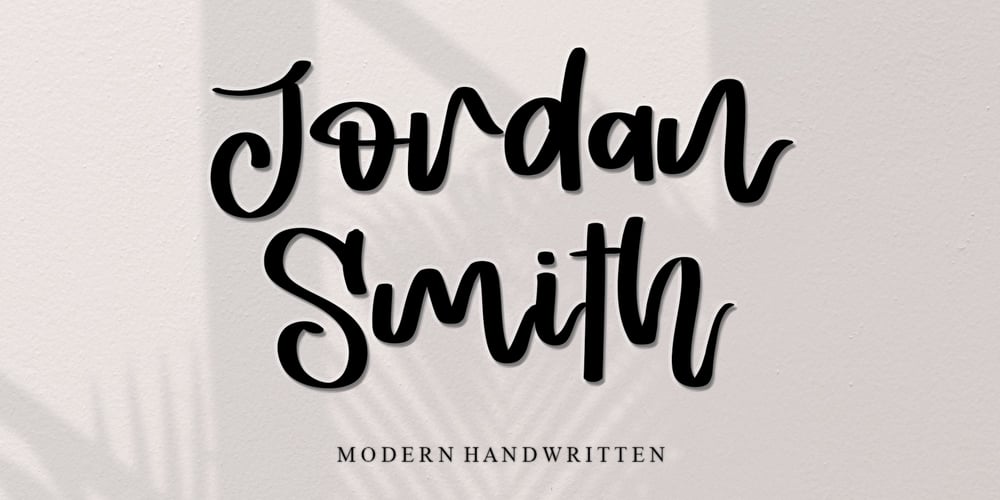
Jordan Smith Font Family was designed by Ahmad Afandi and published by Letterafandi Studio. Jordan Smith contains 2 styles and family package options. Jordan Smith is a natural handwritten font. It looks stunning on wedding invitations, thank you cards, quotes, greeting cards, logos, business cards, and every other design which needs a handwritten touch.